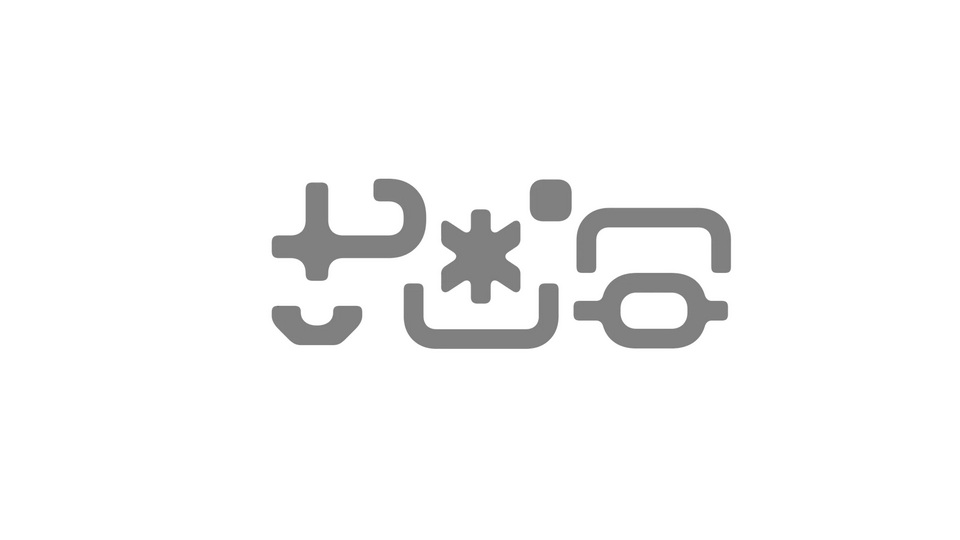
Download Werkzeug font, a monospaced sans-serif typeface that redefines the genre with its rounded corners and inventive letterforms.
Designer: Dima Grenev